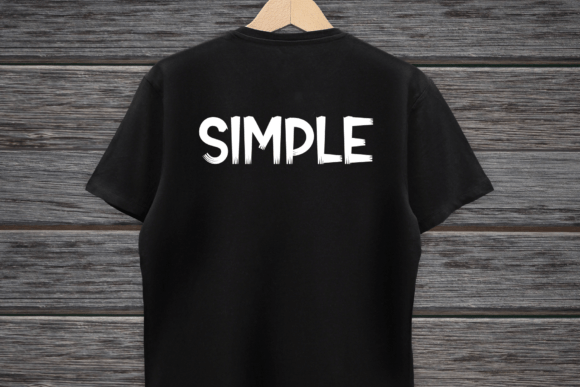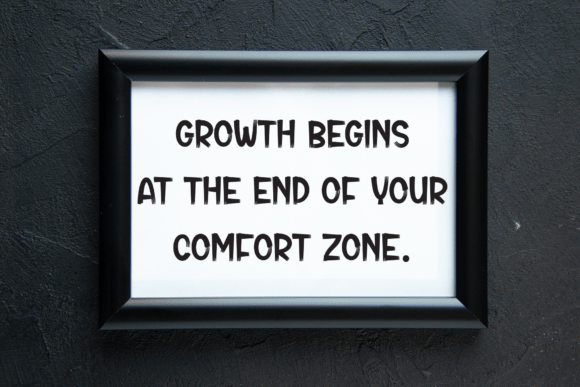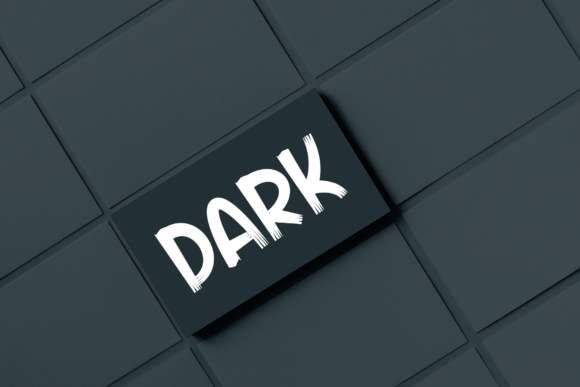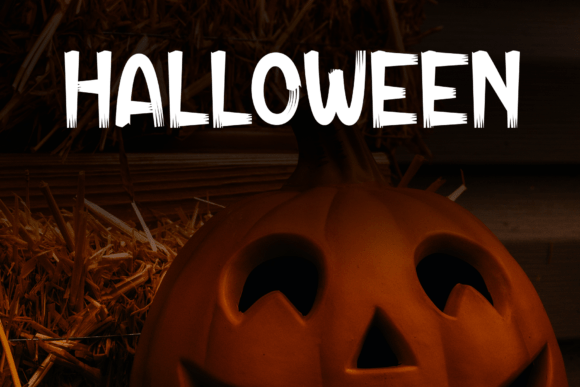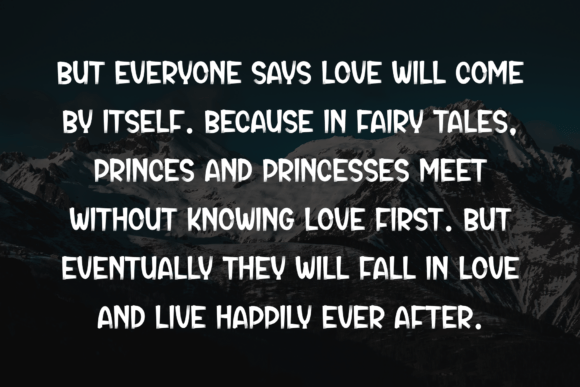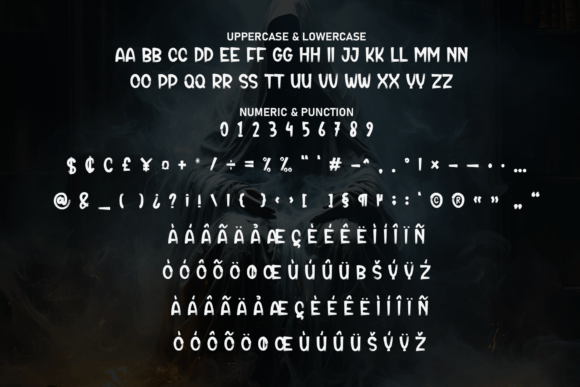
The Perfect Balance of Clarity and Charm
Do you remember the moment when you finally nailed the perfect design for your brand? The one that captures the essence of your personality and resonates with your target audience? For many designers, it’s that feeling of accomplishment and pride that keeps us going. And when it comes to creating attention-grabbing headlines or packaging designs, a well-chosen font can make all the difference.
Enter the Ghost Scary Font, a casual and neat display font that effortlessly combines simplicity with a friendly, approachable vibe. With its clean lines, balanced letterforms, and subtle rounded edges, this font is the perfect addition to any designer’s toolkit. Ideal for branding, headlines, packaging, and digital content, the Ghost Scary Font adds a warm and inviting touch to any design, delivering clarity and charm in equal measure.
Ghost Scary Font Key Features
- Font Family: Ghost Scary Font is a unique, horror-themed font family that includes multiple styles and weights.
- Unique Characteristics: Distinctive, eerie, and unsettling design elements, including ghostly textures and eerie effects, set this font apart from others in the horror genre.
- Styles and Weights: Includes multiple styles and weights, such as bold, italic, and condensed, allowing designers to achieve a range of effects and moods.
Ghost Scary Font Review
Ghost Scary Font is an intriguing addition to any design project, and I’m excited to share my honest review.
- The font’s unique, eerie design is perfect for creating a spooky atmosphere in Halloween-themed projects.
- The bold, gothic-inspired characters are highly legible, making it easy to read even in smaller sizes.
- The font’s versatility allows it to be used in a variety of contexts, from horror movie titles to gothic-inspired logos.
- The font’s limited character set may make it difficult to use for longer blocks of text.
- The font’s spooky design may not be suitable for all audiences, particularly those who find it too intense or disturbing.
- The font’s bold, gothic-inspired design may not be suitable for more formal or professional projects.
Overall, I’m impressed with Ghost Scary Font’s unique design and versatility. However, its limitations should be carefully considered before using it in a design project. With the right context and audience in mind, this font can add a spooky touch to any design.
The Ghost Scary Font is ideal for creating spooky and eerie designs, such as:
- Haunted house invitations
- Spooky Halloween graphics
- Creepy horror movie posters
Remember to experiment with different font sizes and styles to achieve the desired level of scariness.
Alternatives to “Ghost Scary Font” for Designers
Cargo
Cargo is a modern sans-serif font with a unique blend of futuristic and industrial elements. It is ideal for use in futuristic or sci-fi themed designs, as well as in tech and gaming industries. Compared to Ghost Scary Font, Cargo has a more polished and refined look, making it suitable for a wider range of applications.
Montserrat is a geometric sans-serif font with a strong, urban feel. It is perfect for use in modern and minimalist designs, as well as in urban and industrial settings. Compared to Ghost Scary Font, Montserrat has a more subtle and sophisticated look, making it suitable for use in high-end designs.